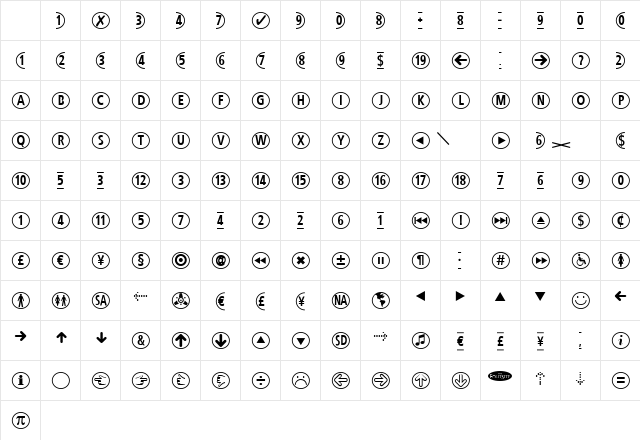
Complete CombiNumerals Pro Regular glyph index. Displaying only characters natively supported by CombiNumerals Pro Regular font.
CombiNumerals Pro is a composed and adaptable typeface that performs quietly and consistently across a wide range of design contexts.